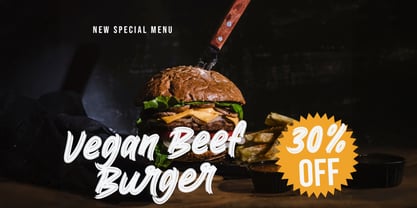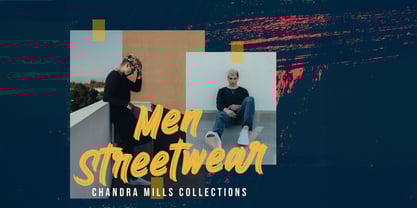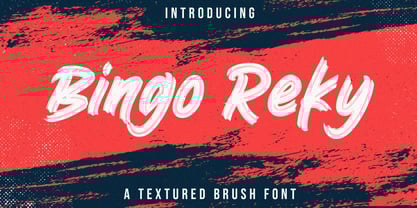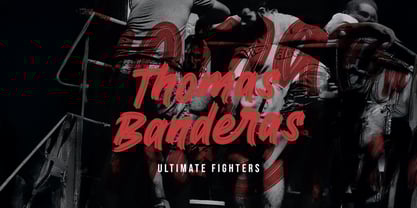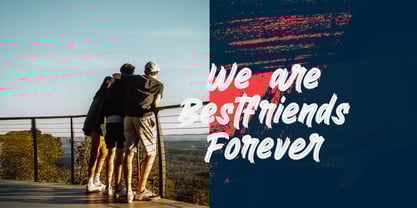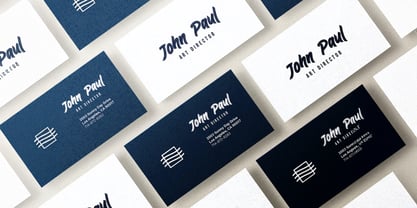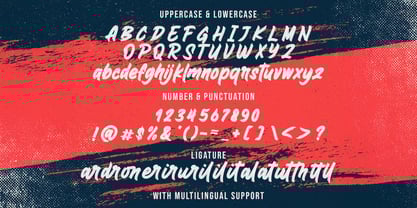
The Bingo Reky Font Family was designed by Virgiawan Listanto and published by Stringlabs Creative Studio. Bingo Reky contains 1 styles.
Bingo Reky is a gritty and energetic textured brush font designed to make a statement. With bold strokes, rough edges, and a raw handcrafted feel, this font adds an urban, rebellious vibe to any creative project. Perfect for posters, apparel, album covers, and edgy branding, Bingo Reky delivers fearless personality and street-inspired flair.
Bingo Reky